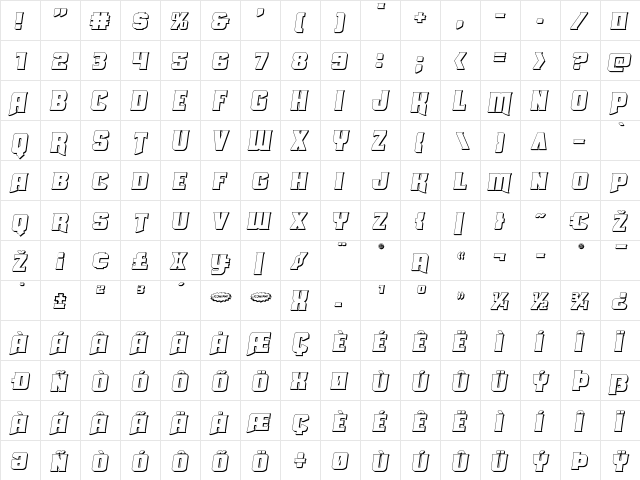
Union Gray 3D Semi-Italic Semi-Italic
Design Context for Union Gray 3D Semi-Italic Typeface
Union Gray 3D Semi-Italic takes a measured approach to typography — its balanced proportions and neutral character make it a reliable workhorse for both digital and print work. The dynamic lean of this cut emphasises speed and emphasis in any layout.